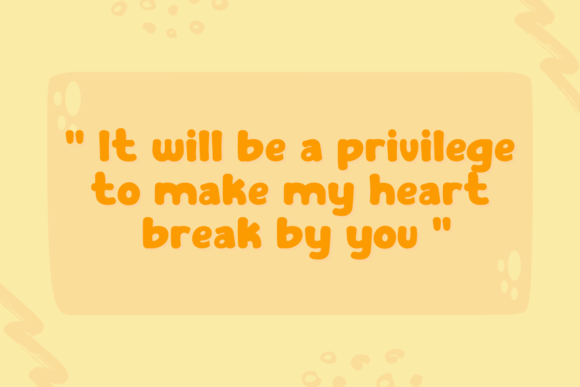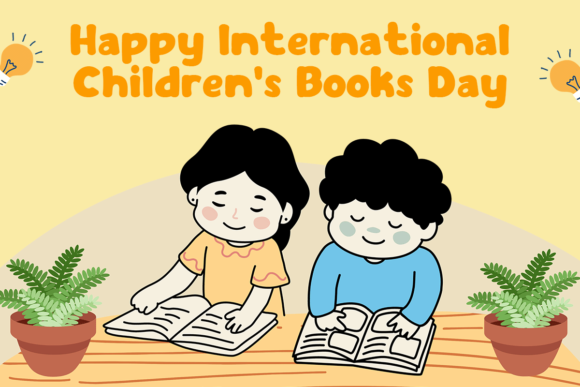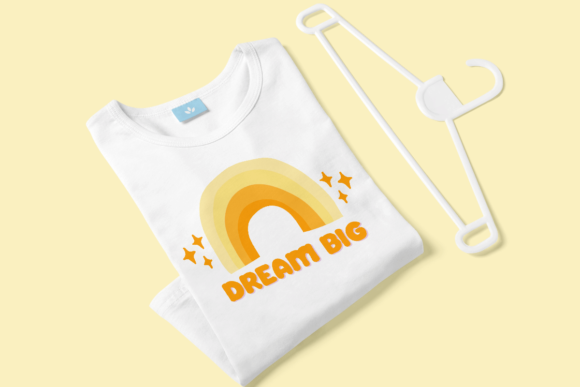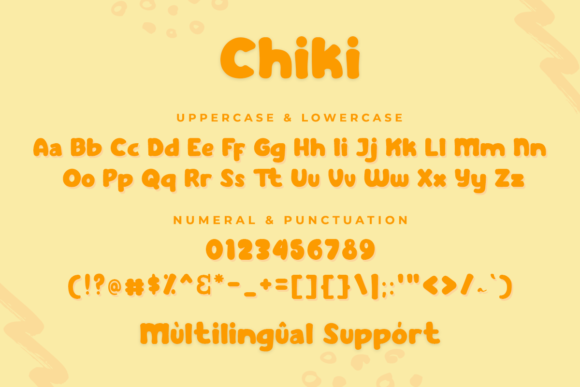
The Chiki Font: A Playful and Authentic Display Font for Creative Projects
I’ll never forget the time I was working on a children’s activity book and struggled to find the perfect font. The project required a playful, yet authentic feel that would appeal to kids and parents alike. That’s when I stumbled upon the Chiki font. Its cute and friendly design immediately caught my attention, and I knew I had found the perfect fit. In this article, I’ll share my experience with the Chiki font, its features, and how to make the most of it in various design platforms.
An Honest Review of Chiki Font
The Chiki font has won my heart with its unique blend of playfulness and authenticity. Here are some things I love about it:
- ✨ Cute and friendly design: Chiki’s playful curves and lines make it perfect for children’s activities, school projects, and any design that requires a friendly tone.
- ✅ Highly versatile: This font is not limited to just one type of project. You can use it for quotes, logos, lettering, banners, t-shirt designs, and more.
- 🎉 Easy to read: Despite its playful nature, Chiki is surprisingly easy to read, making it suitable for both headlines and body text.
While Chiki is an excellent font, it’s not without its quirks:
- 🤔 Limited use in formal designs: Chiki’s playful nature makes it less suitable for formal designs, such as business reports or academic papers.
- ⚠️ Some letter combinations may require adjustments: As with any font, you may need to adjust letter spacing or kerning for certain combinations to ensure optimal readability.
The Backstory of Chiki Font
The Chiki font was designed by a team of creatives who wanted to create a font that embodies playfulness and authenticity. Inspired by childhood memories and the joy of creating, they crafted a font that would bring a smile to people’s faces. With its cute and friendly design, Chiki has become a popular choice among designers, crafters, and creative hobbyists.
| What is the Chiki font best used for? | The Chiki font is perfect for children’s activities, school projects, quotes, logos, lettering, banners, t-shirt designs, and more. |
| Is the Chiki font easy to read? | Yes, despite its playful nature, Chiki is surprisingly easy to read, making it suitable for both headlines and body text. |